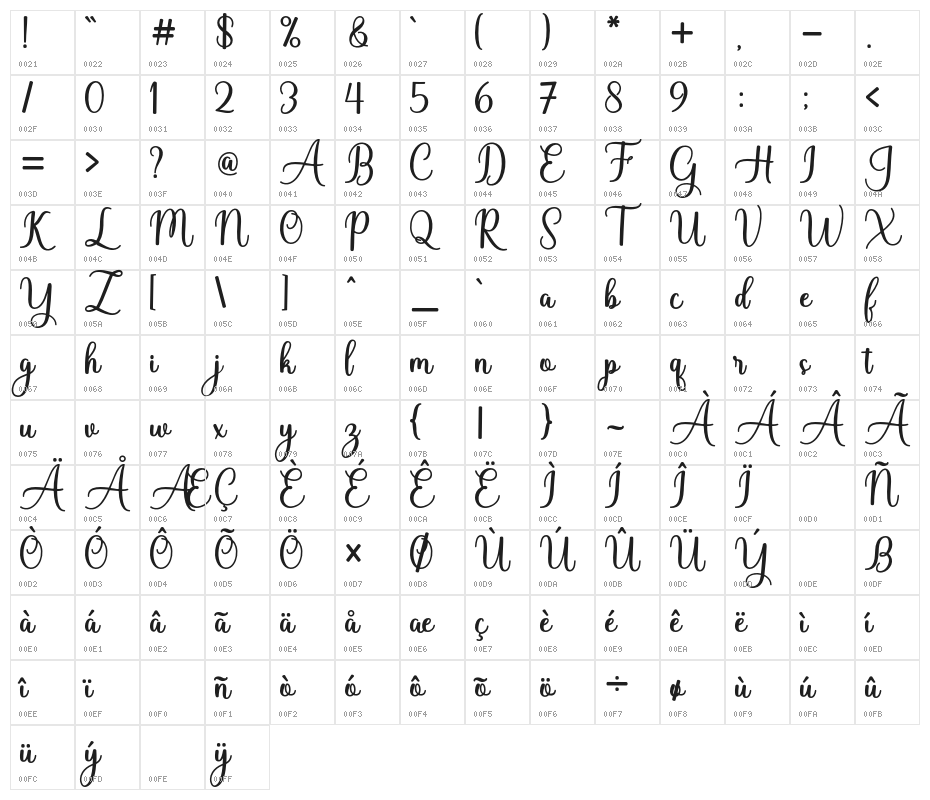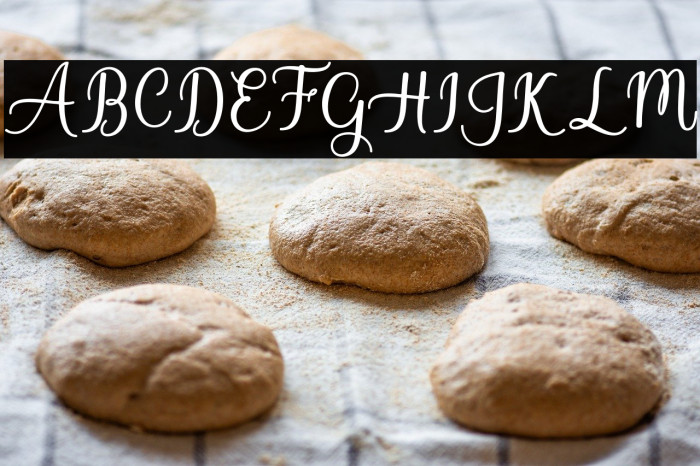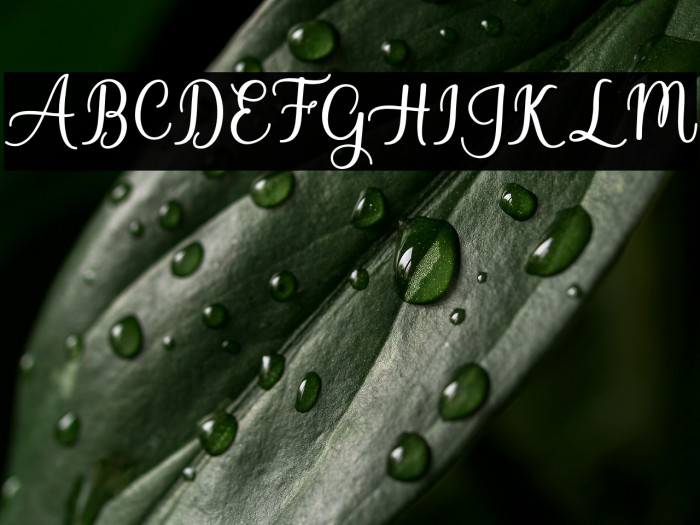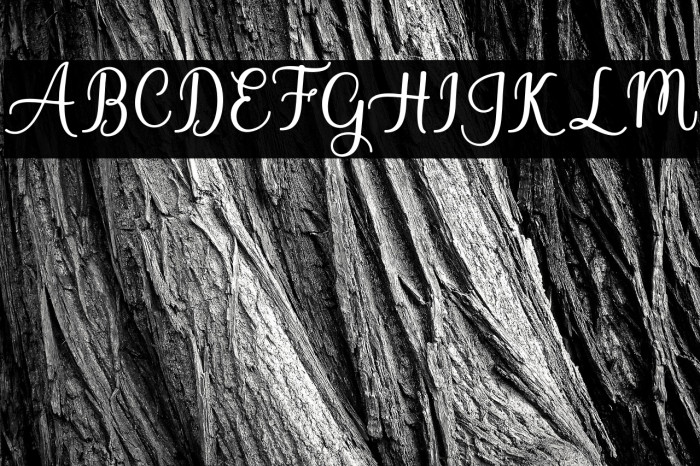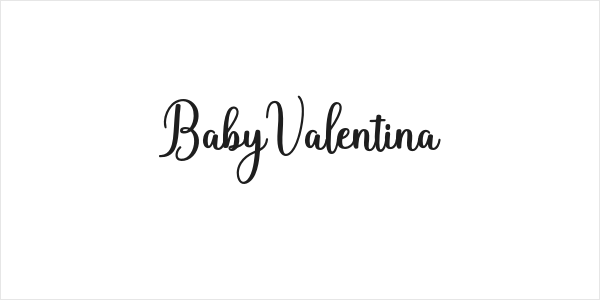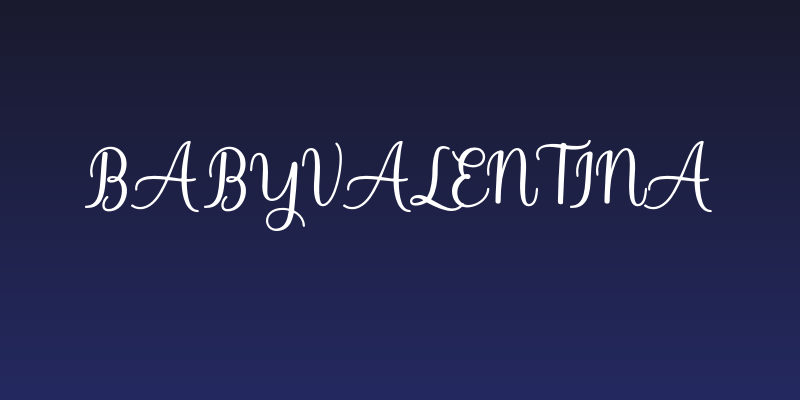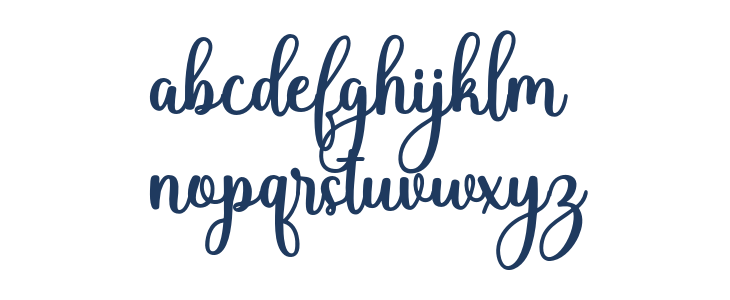
BabyValentina Font
BabyValentina Description
This font features a playful and elegant script style, characterized by its flowing, cursive letters that exude a sense of charm and sophistication. The uppercase letters are slightly more formal, with delicate loops and swirls, while the lowercase letters maintain a consistent, smooth flow that enhances readability. The numerals are clear and distinct, complementing the overall aesthetic. Special characters are thoughtfully designed, maintaining the font's cohesive style. This font is ideal for projects that require a touch of elegance and personality, such as invitations, branding, and decorative text.
| Overall Style | Elegant, Playful |
| Use Case | Headlines, Invitations, Branding |
| Proposed Projects | Ideal for wedding invitations, branding, greeting cards, and decorative text. |